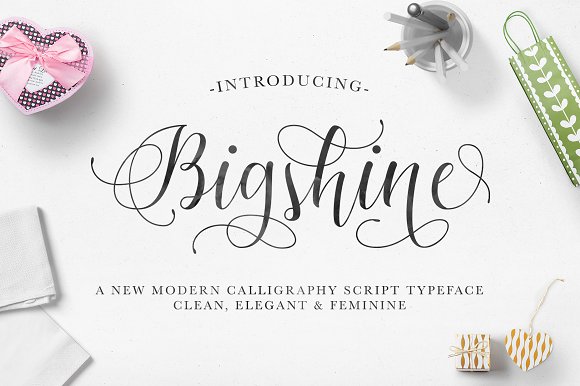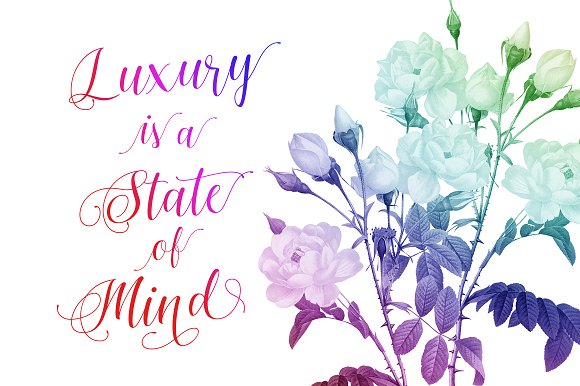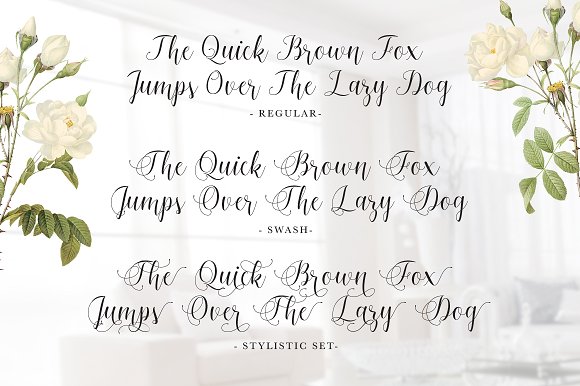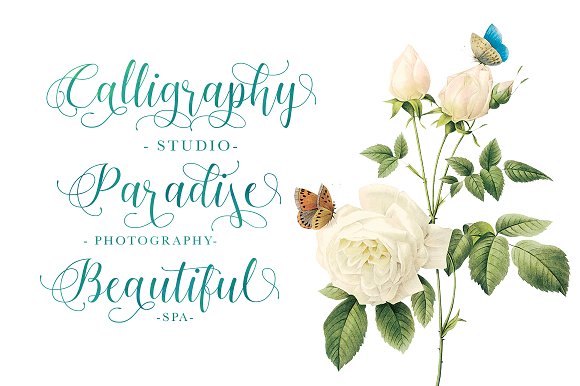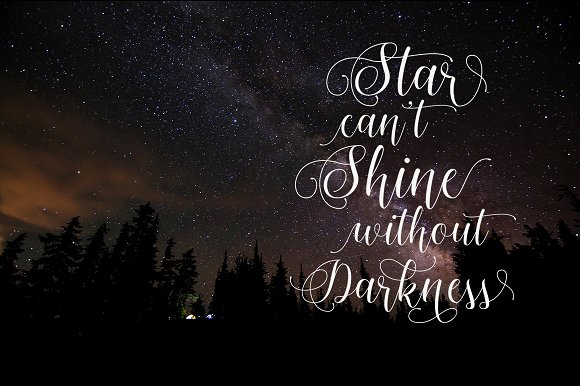
Bigshine Font
Bigshine is a modern handwritten calligraphy style font created by Ian Mikraz.
This stunning font features 317 glyphs and 132 alternate characters.